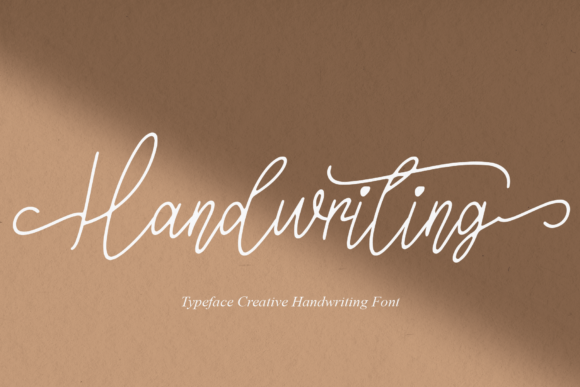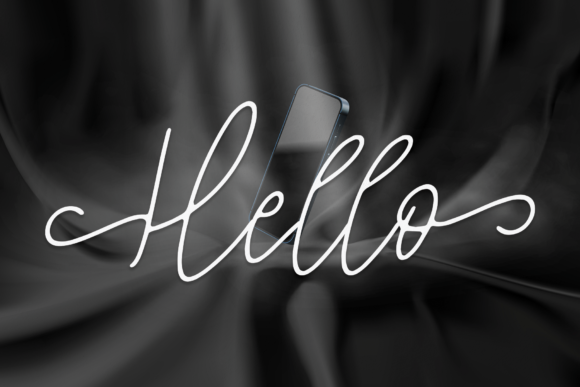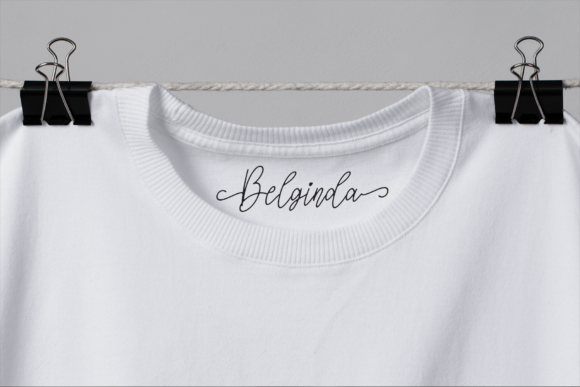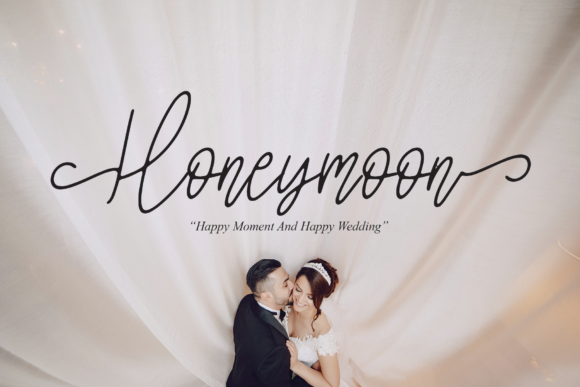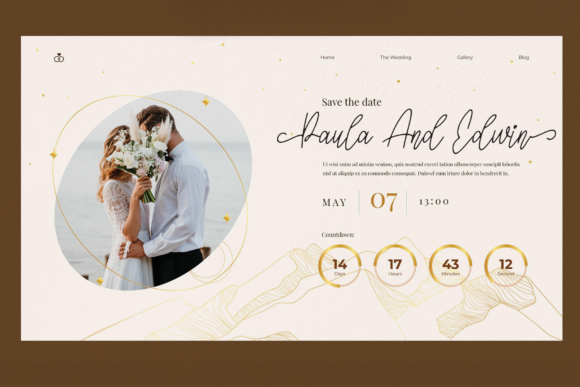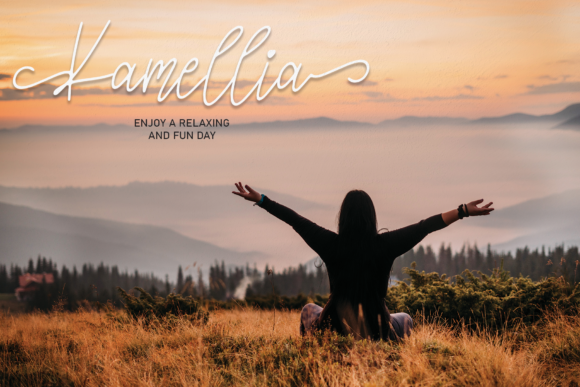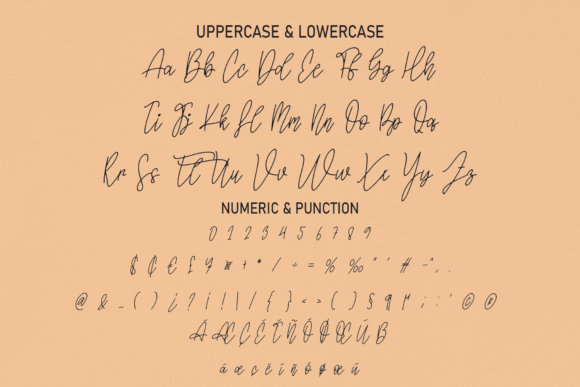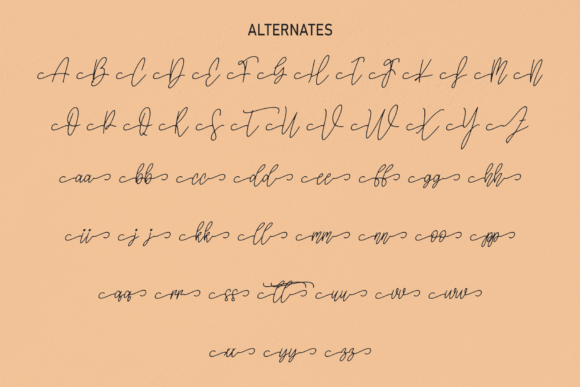
Handwriting Font
About Handwriting Font
Handwriting is a thin lettered and graceful script font. Fall for its ravishing style and use it to create gorgeous designs! This font is PUA encoded which means you can access all glyphs and swashes with ease!